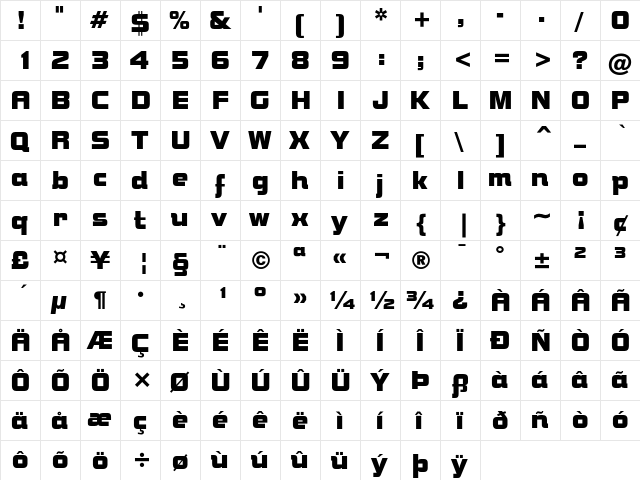
ITC Bolt Bold Regular
Design Context for ITC Bolt Bold Typeface
ITC Bolt Bold takes a measured approach to typography — its balanced proportions and neutral character make it a reliable workhorse for both digital and print work. Its bold stroke weight gives it real presence on the page.